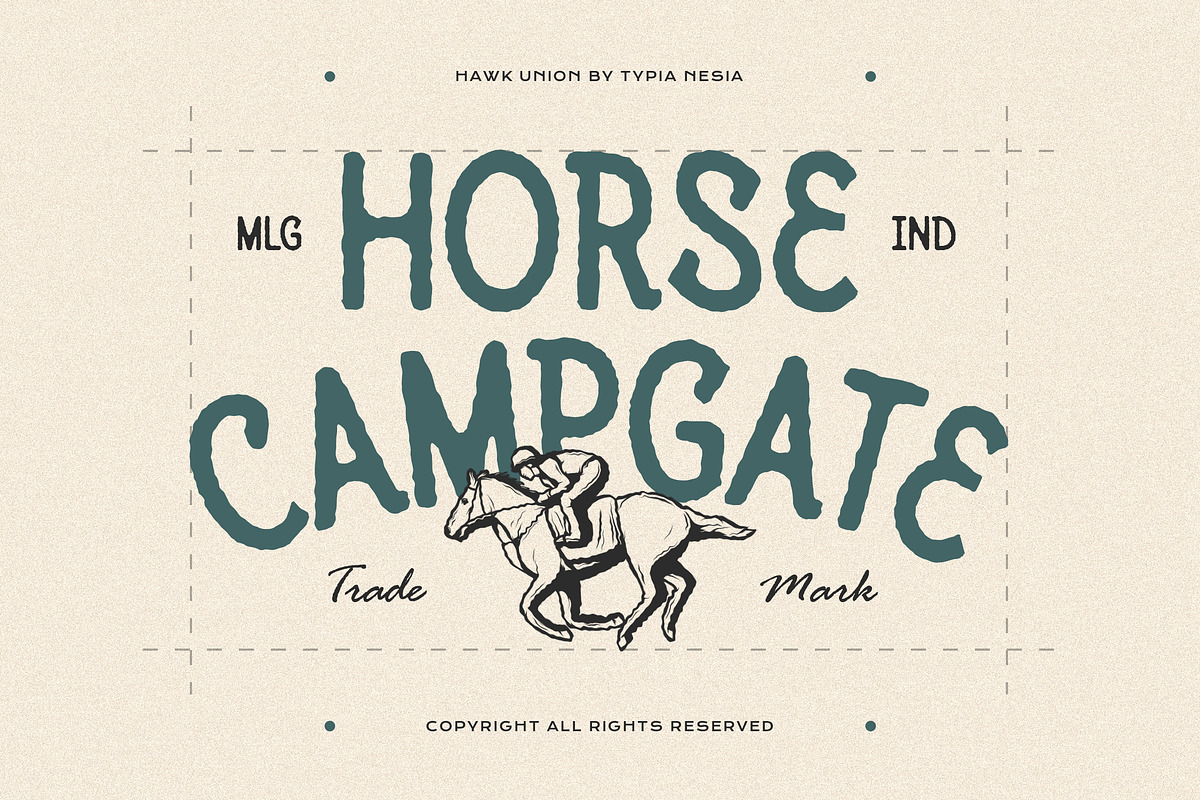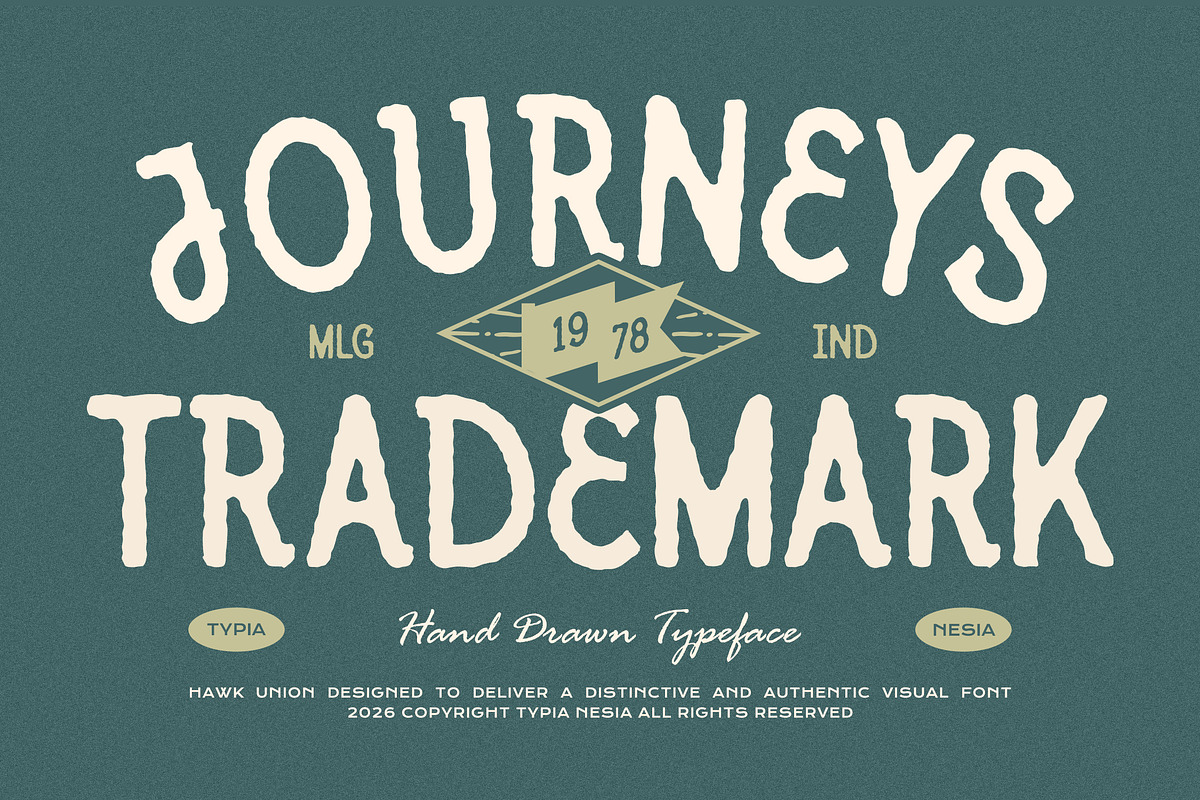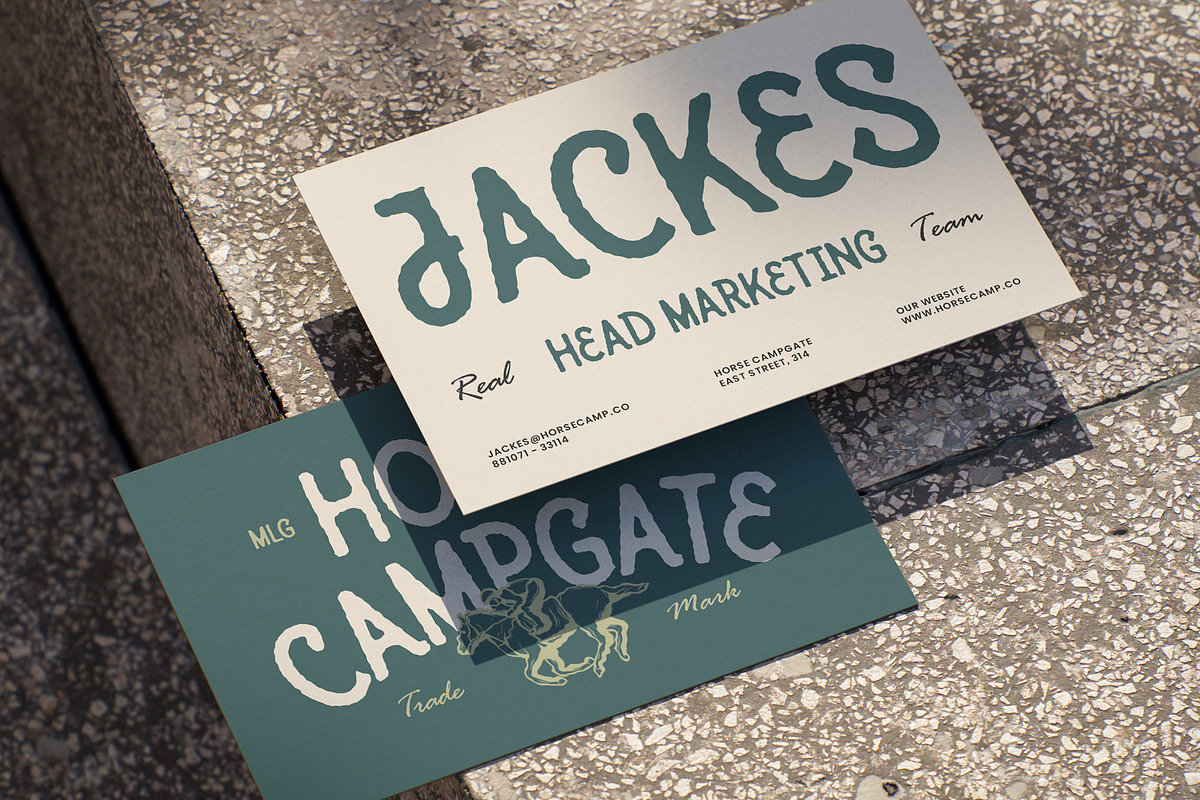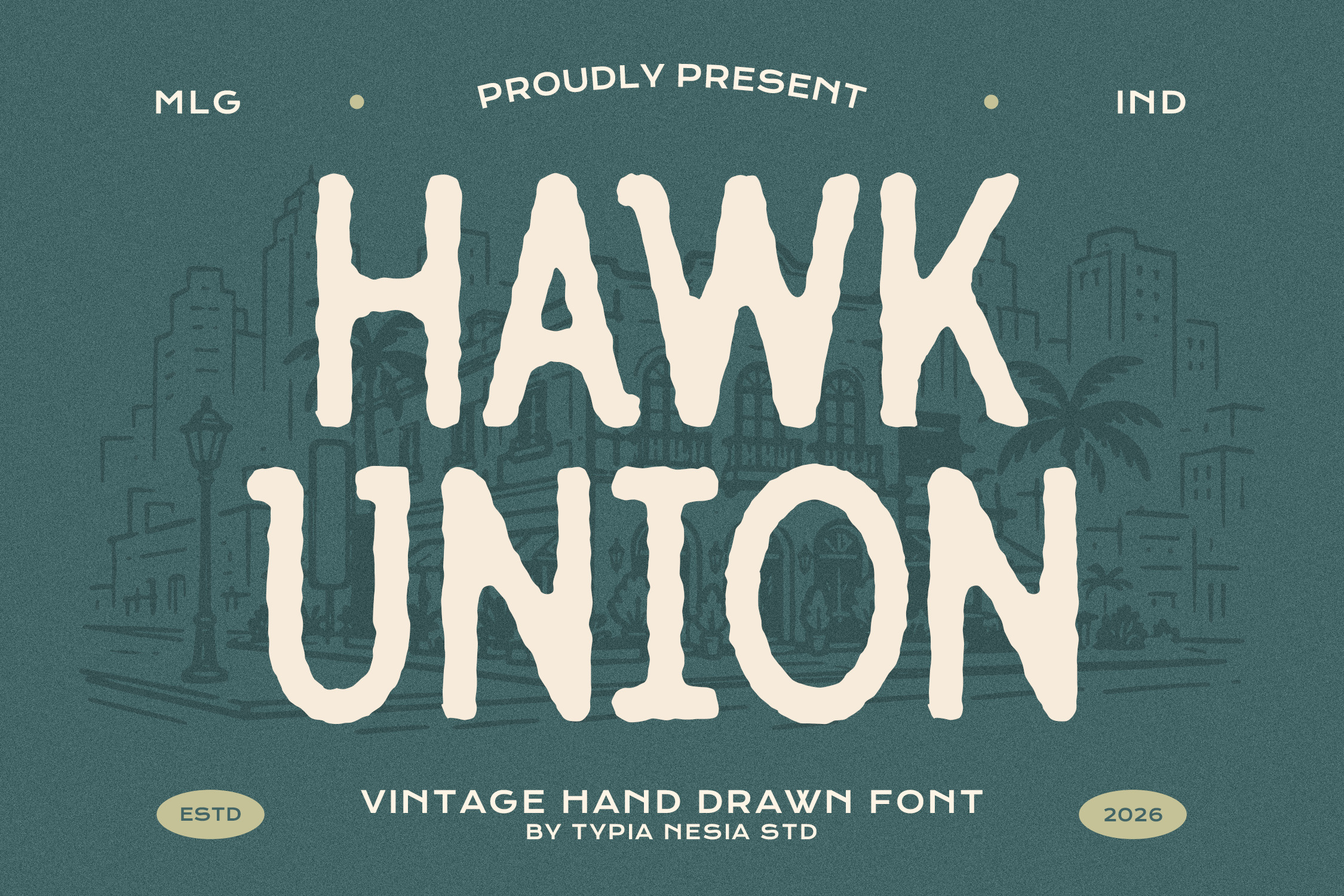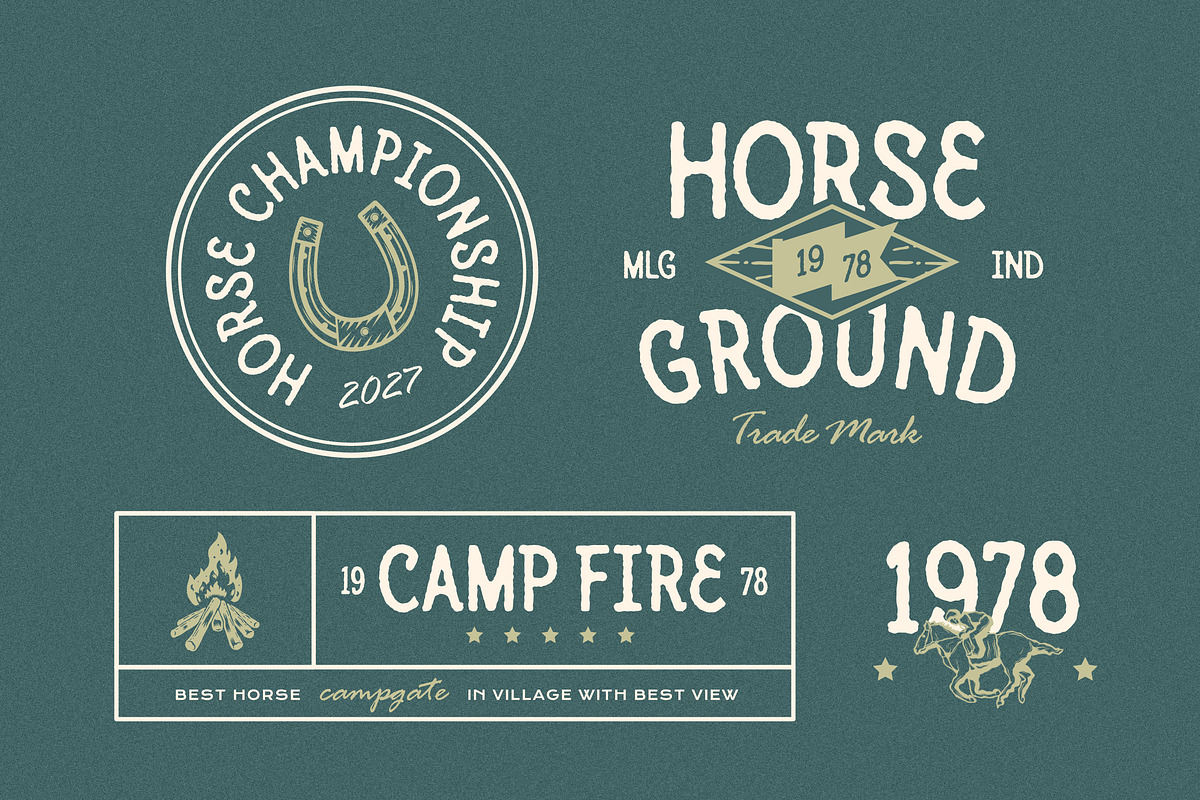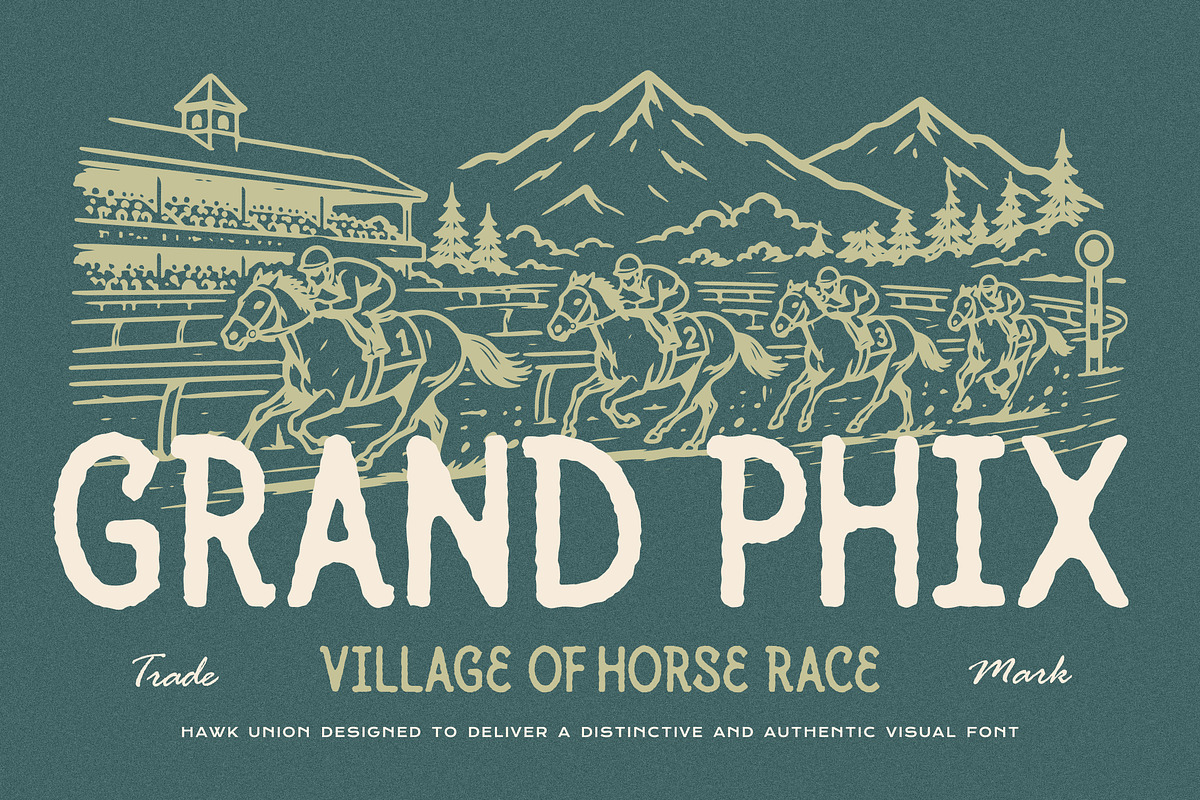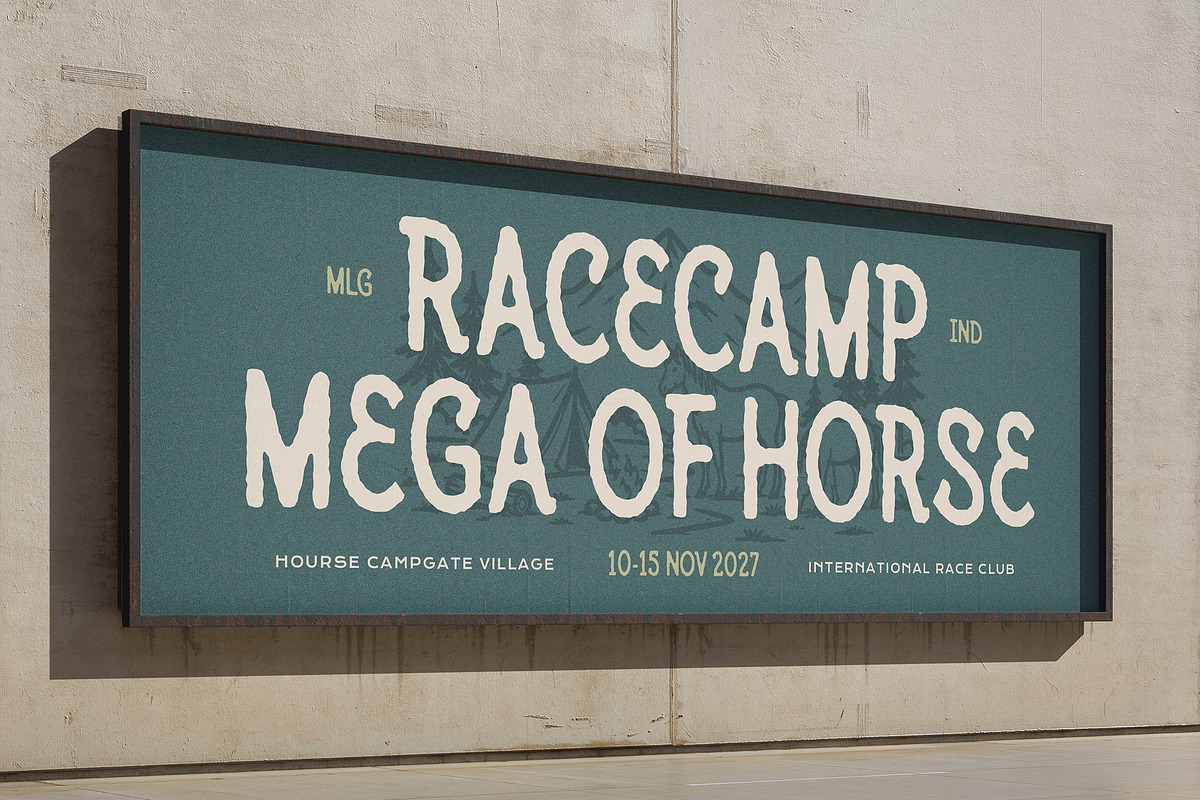
Hawk Union - Vintage Hand Drawn Font
Hawk Union - Rough Vintage Retro Hand Drawn Font
Hawk Union is a retro hand drawn serif font featuring organic letterforms, handcrafted imperfections, and timeless vintage character. Designed to create an authentic and approachable visual identity, it delivers a nostalgic yet professional impact that feels equally at home in modern branding and heritage-inspired design projects.
Perfect for coffee shops, restaurants, artisan products, boutique packaging, lifestyle brands, farmers markets, vintage signage, hospitality businesses, and retro promotional materials. It features multilingual support, uppercase and lowercase characters, numerals, punctuation, and handcrafted details that add warmth and personality to every composition.
Bring authentic vintage charm and handcrafted character to your branding with Hawk Union.